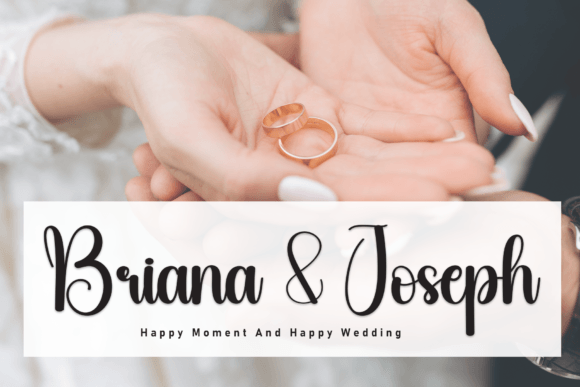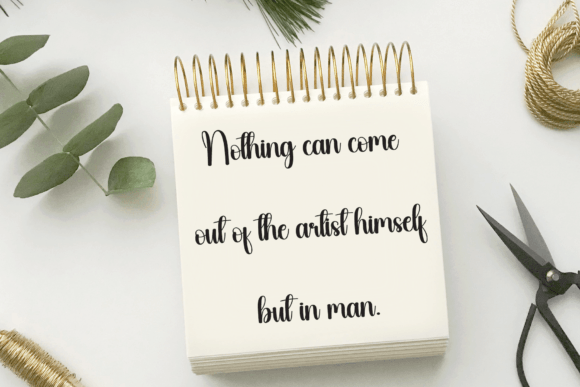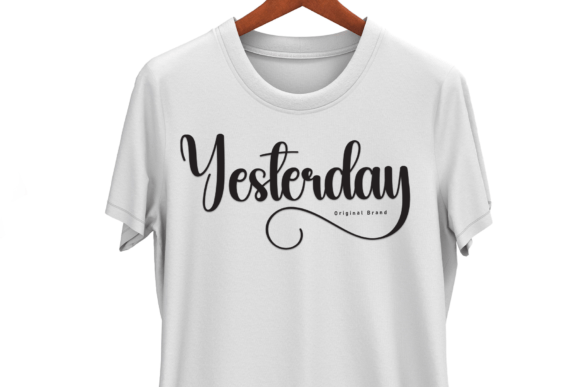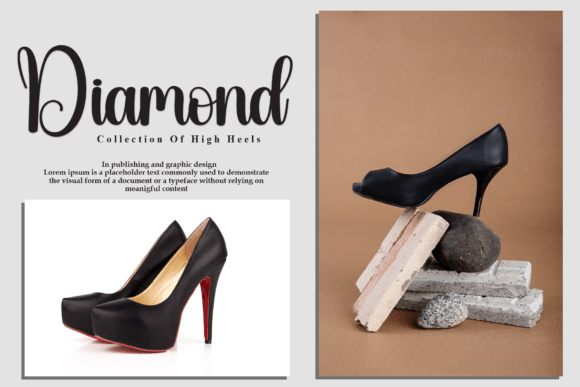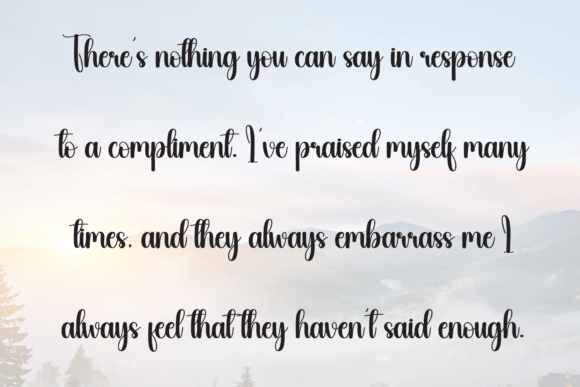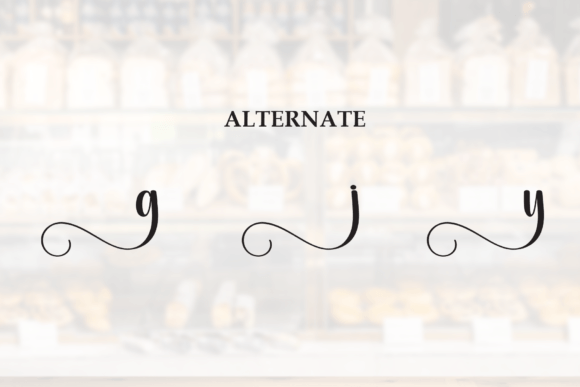
Bakery Font: The Sweetest Addition to Your Design Collection
Are you a designer or crafter looking for a font that adds a touch of whimsy and fun to your projects? Look no further than the Bakery font! This sweet and friendly handwritten display font is perfect for creating eye-catching wedding invitations, cards, and other designs that need a playful twist.
What is Bakery Font?
Bakery font is a beautiful, hand-crafted typeface that exudes warmth and friendliness. Its cute and fun design makes it an ideal choice for designers and crafters who want to add a personal touch to their work. Whether you’re creating wedding invitations, greeting cards, or social media graphics, Bakery font is sure to make your designs stand out.
Key Features of Bakery Font
- Handwritten display font: Bakery font is a carefully crafted handwritten font that mimics the look of handwritten text. Its unique and personal feel makes it perfect for designs that require a touch of elegance and sophistication.
- Cute and fun design: The font’s playful design makes it ideal for creating fun and engaging designs. Whether you’re creating a children’s party invitation or a social media graphic, Bakery font is sure to bring a smile to your audience’s faces.
- Perfect for wedding invitations and cards: Bakery font’s elegant and sophisticated design makes it perfect for creating beautiful wedding invitations, cards, and other stationery.
- Easily readable: Despite its playful design, Bakery font is easily readable, making it perfect for body text and headings.
How to Use Bakery Font in Your Designs
Bakery font is a versatile typeface that can be used in a variety of design projects. Here are some ideas to get you started:
- Wedding invitations: Create beautiful and unique wedding invitations that set the tone for the big day.
- Greeting cards: Add a personal touch to your greeting cards with Bakery font’s playful and elegant design.
- Social media graphics: Use Bakery font to create eye-catching social media graphics that stand out from the crowd.
- Party invitations: Create fun and engaging party invitations that kids and adults will love.
Tips for Pairing Bakery Font with Other Fonts
Pairing Bakery font with other fonts can create a unique and visually appealing design. Here are some tips to keep in mind:
- Pair with a sans-serif font: Pairing Bakery font with a sans-serif font like Arial or Helvetica creates a nice contrast between the playful and elegant designs.
- Use a script font: Pairing Bakery font with another script font like Pacifico or Great Vibes creates a beautiful and elegant design.
- Experiment with font sizes: Experimenting with different font sizes can create a visually appealing design that draws attention to your message.
Bakery font is a sweet and friendly handwritten display font that’s perfect for designers and crafters who want to add a touch of whimsy and fun to their designs. With its cute and fun design, Bakery font is ideal for creating eye-catching wedding invitations, cards, and other designs that need a playful twist. Whether you’re a seasoned designer or a beginner, Bakery font is a great addition to your font collection.